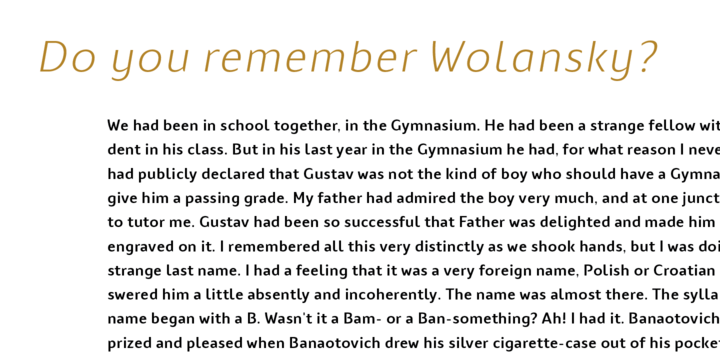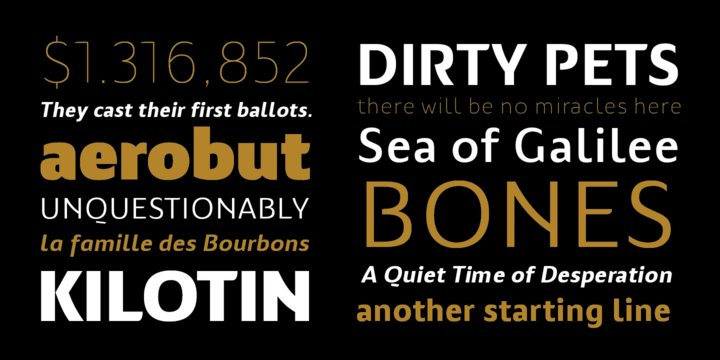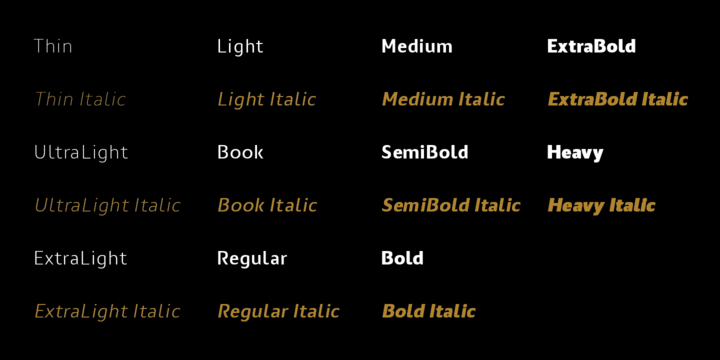
Nula Font Family
About this font family
Nula is humanist sans serif family equipped with 22 font files – 11 weights and italics – from Thin to Heavy. It is modern, functional and distinctive, ideal for multiple purposes. Curvy diagonal stems and endings characterize Nula as typeface with lively elegant and soft touch, but stable, well structured typeface at same time. Nula font family is fully legible in any size and with it’s variety of weights recommends itself for publishing or online magazine.